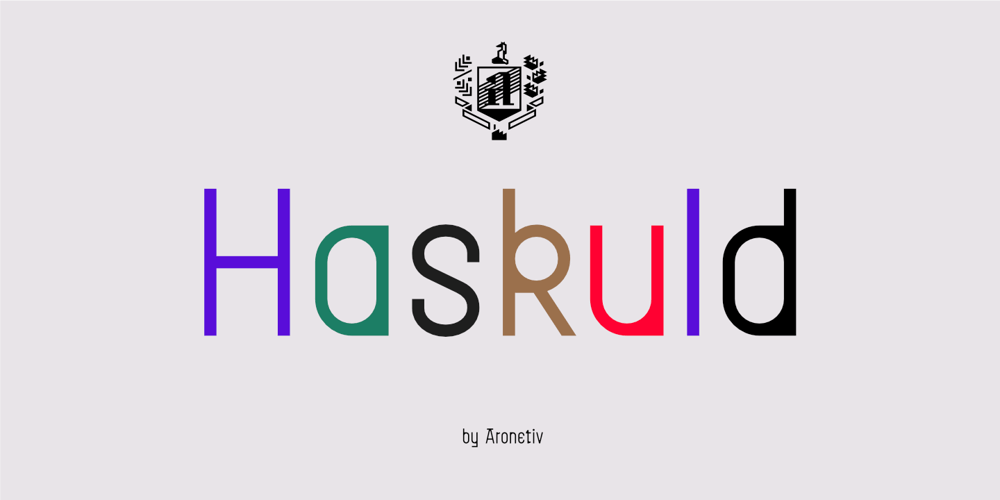
Haskuld
Haskuld font
Haskuld Font Family was designed by Aleksey Popovtsev and published by Aronetiv. Haskuld contains 7 styles and family package options. Haskuld is an experimental typeface that expertly merges ancient, first-printed forms with contemporary design modular construction, resulting in a truly unique and bold typographic experience. Its striking appearance captures the essence of historical typography while embracing a modern aesthetic, making it stand out in any context.With its distinct character set and strong visual presence, Haskuld is particularly well-suited for ultra-modern design projects, where it can add an element of sophistication and innovation. In the realm of architecture, it enhances visual identity and communication, providing a contemporary flair that resonates with cutting-edge concepts.For the art world, Haskuld’s bold look makes it a captivating choice for exhibition materials, artist portfolios, and promotional graphics, allowing it to convey a sense of creativity and originality. Overall, Haskuld is a versatile typeface that bridges the gap between historical influence and modern design, making it an exceptional choice for projects that aim to make a powerful statement.